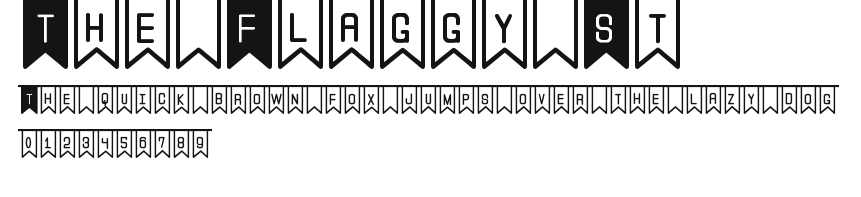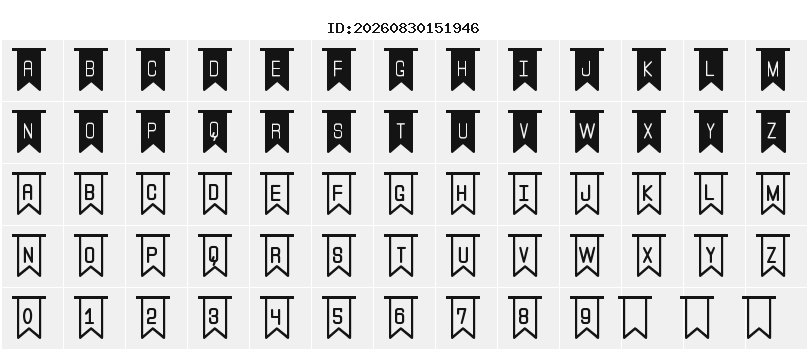
The Flaggy St Preview
• Font Name: The Flaggy St
• Font ID: The Flaggy St:Version 1.00
• Full Font Name: The Flaggy St
• PostScript Name: TheFlaggySt
• Character Count: 241
• Designer: This font is an original work of southype dot com
About The Flaggy St.ttf
The Flaggy St.ttf is a modern, elegant sans-serif font designed for ultimate readability and visual harmony. Perfect for branding, headlines, web design, and print materials.